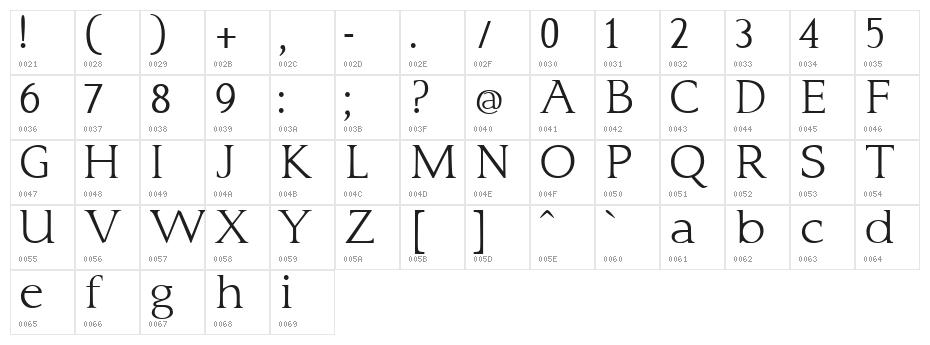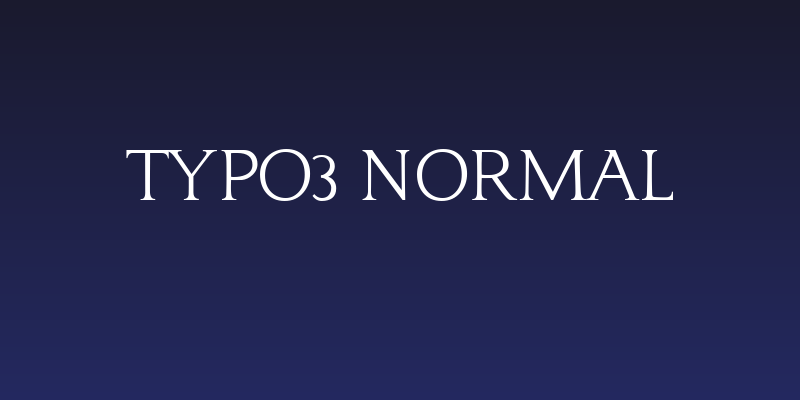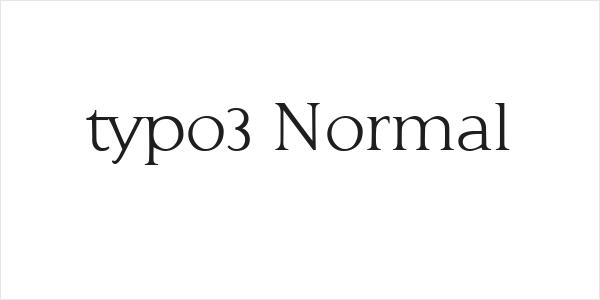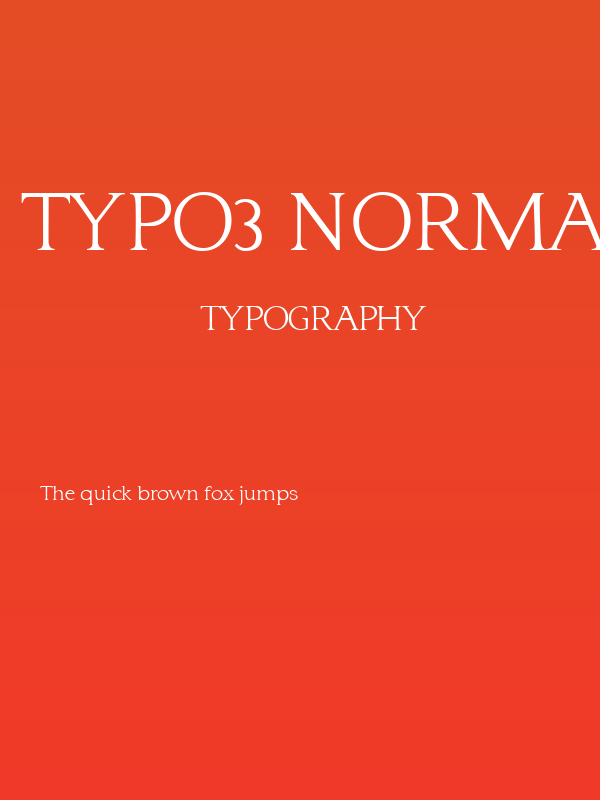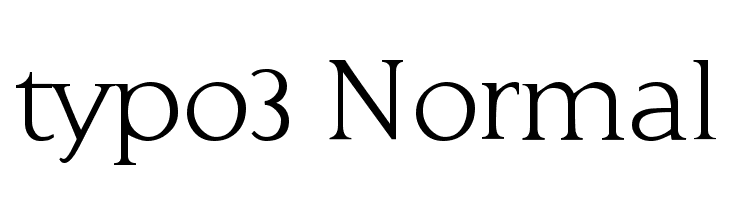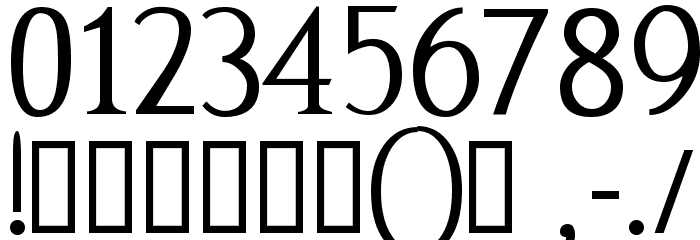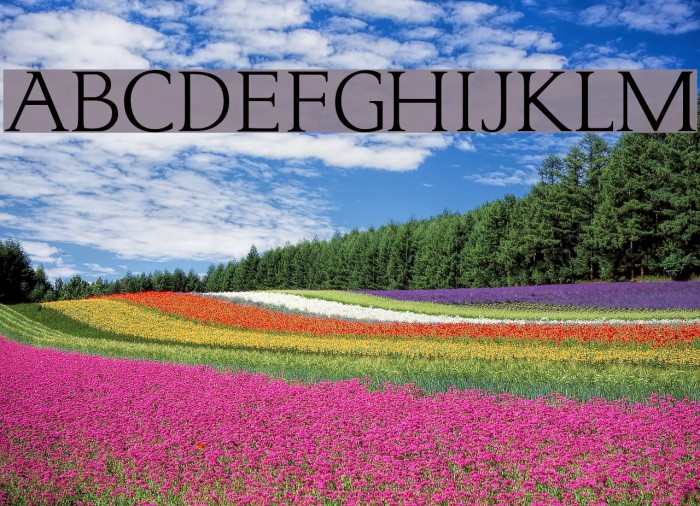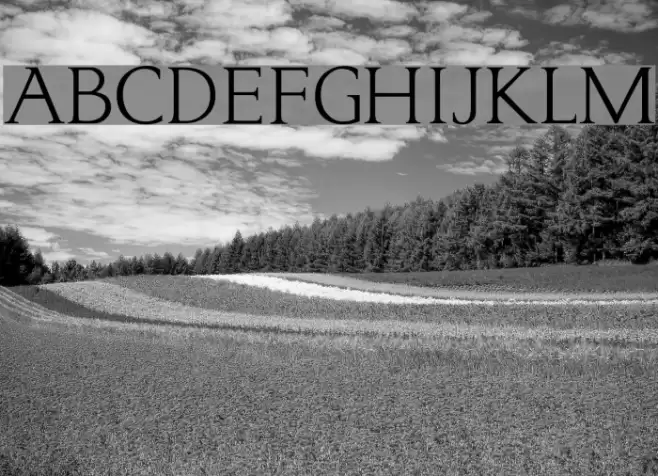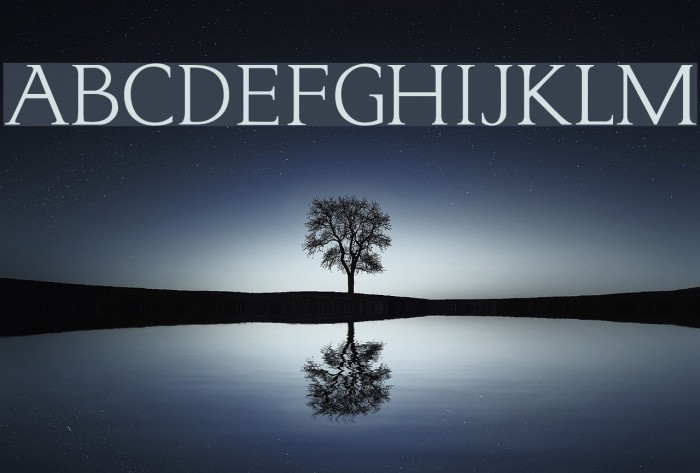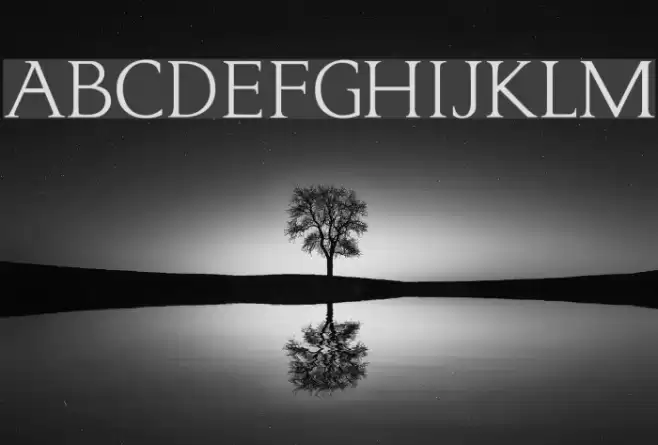
typo3 Normal Font
✎ Serif
| おすすめプロジェクト | Ideal for editorial design, book covers, formal invitations, and branding projects that require a touch of elegance. |